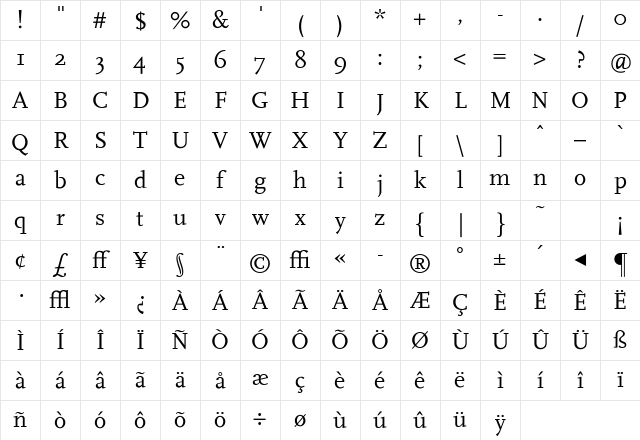
Complete Scala Medium glyph index. Displaying only characters natively supported by Scala Medium font.
Scala is a composed and adaptable typeface that performs quietly and consistently across a wide range of design contexts.
Who designed the Scala Medium font?